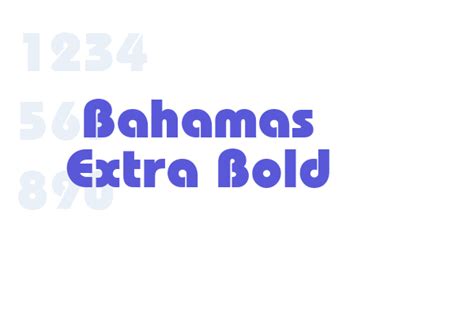
Are you looking to download Bahamas Extra Bold font ? You’ve landed in the right place! In this comprehensive guide, we’ll walk you through everything you need to know about this striking typeface, including its uses, where to find it, and important licensing considerations. Whether you’re a seasoned designer or just starting out, understanding how to properly source and utilize fonts like Bahamas Extra Bold is crucial for creating professional and visually appealing projects. So, buckle up, guys, and let’s dive into the world of typography!
What is Bahamas Extra Bold Font?
Bahamas Extra Bold is a distinctive typeface characterized by its strong, assertive lines and high impact. It falls under the broader category of display fonts, meaning it’s best suited for headlines, titles, and other prominent text elements where you want to grab attention. Its extra bold weight gives it a powerful presence, making it ideal for projects that need to convey confidence and strength. Think about logos, posters, website headers, and even packaging designs – these are all areas where Bahamas Extra Bold can truly shine. The font’s unique character often includes specific stylistic features that set it apart from more generic bold fonts, such as uniquely shaped serifs (if any), distinct letterform proportions, and an overall aesthetic that evokes a sense of modern sophistication. When considering using Bahamas Extra Bold, it’s worth exploring its origins. Knowing the designer or foundry behind the font can provide insights into its intended use and the nuances of its design. This deeper understanding helps you appreciate the font’s qualities and effectively incorporate it into your creative projects. Moreover, examining the font’s character set – the full range of letters, numbers, punctuation marks, and symbols it offers – is essential. A comprehensive character set ensures that you have all the tools you need to express your message fully and accurately, regardless of the specific words or phrases you intend to use. Different versions of Bahamas Extra Bold might exist, each with subtle variations in weight, width, or style. Comparing these versions allows you to select the one that perfectly matches the tone and visual identity of your project.
Why Use Bahamas Extra Bold?
The question of why use Bahamas Extra Bold often boils down to its unique ability to command attention and convey a sense of importance. In the crowded landscape of typography, this font stands out due to its robust weight and distinct personality. It’s perfect for situations where you need to make a statement, whether it’s in a bold headline, a striking logo, or eye-catching promotional material. Consider the impact of a website header using Bahamas Extra Bold . The words instantly grab the visitor’s attention, communicating the essence of the brand with confidence and clarity. Similarly, in print media, this font can transform a simple poster into a powerful visual message. Its strong lines and bold presence ensure that the key information is impossible to miss. Beyond its aesthetic appeal, Bahamas Extra Bold can also be a strategic choice for branding. A well-chosen font can become synonymous with a brand’s identity, and using Bahamas Extra Bold consistently across various platforms can reinforce brand recognition and create a cohesive visual experience. However, it’s crucial to use this font judiciously. Because of its strong presence, overusing it can lead to visual clutter and diminish its impact. It’s best paired with simpler, more neutral fonts for body text to create a balanced and harmonious design. Think of it as the star of the show – it needs supporting actors to truly shine. Furthermore, consider the context in which the font will be used. Is it for a formal or informal setting? Does it align with the overall tone and message you’re trying to convey? Bahamas Extra Bold might not be suitable for every project, but when used appropriately, it can elevate your design and leave a lasting impression.
Tips for Using Bahamas Extra Bold Effectively
To maximize the impact of Bahamas Extra Bold , consider these tips for effective usage. First and foremost, remember that less is often more. Due to its strong presence, using Bahamas Extra Bold sparingly can create a more dramatic effect than overusing it throughout your design. Reserve it for headlines, titles, logos, and other key elements where you want to draw the viewer’s attention. Pairing Bahamas Extra Bold with a simpler, more neutral font for body text is crucial for creating a balanced and readable design. Choose a font that complements the boldness of Bahamas Extra Bold without competing with it for attention. Sans-serif fonts like Arial, Helvetica, or Open Sans often work well as contrasting fonts. Experiment with different font sizes and weights to find the perfect balance between the headline and body text. Consider the overall tone and message of your project when deciding whether to use Bahamas Extra Bold. It’s a powerful and assertive font, so it might not be suitable for projects that require a delicate or subtle touch. However, it can be a great choice for projects that need to convey confidence, strength, or modernity. Pay attention to kerning and letter spacing when using Bahamas Extra Bold. Kerning refers to the adjustment of space between individual letters, while letter spacing refers to the overall spacing between all letters in a word or phrase. Proper kerning and letter spacing can significantly improve the readability and visual appeal of your text. Use design software like Adobe Illustrator or Adobe Photoshop to fine-tune the kerning and letter spacing of your Bahamas Extra Bold text. Experiment with different color combinations to see how Bahamas Extra Bold interacts with other elements in your design. A bold font like Bahamas Extra Bold can look particularly striking when paired with contrasting colors. However, be mindful of color accessibility and ensure that your color choices provide sufficient contrast for viewers with visual impairments. Finally, always test your design on different devices and screen sizes to ensure that Bahamas Extra Bold looks good in all contexts. What looks great on your computer screen might not translate well to a mobile device or a printed poster. Testing your design thoroughly will help you identify any potential issues and make necessary adjustments before finalizing your project.